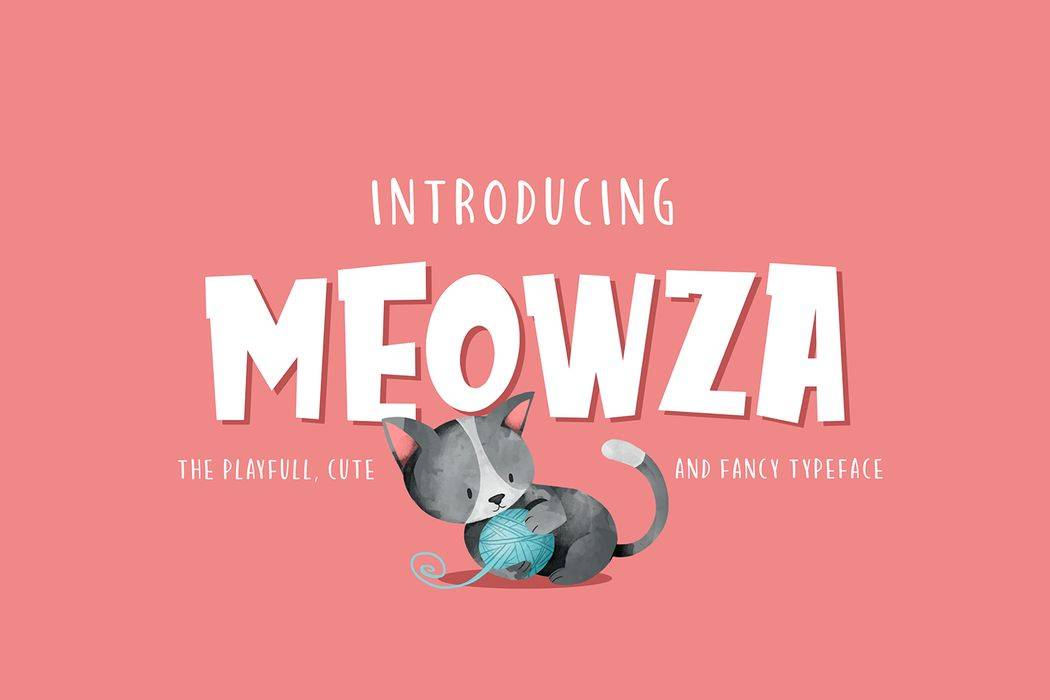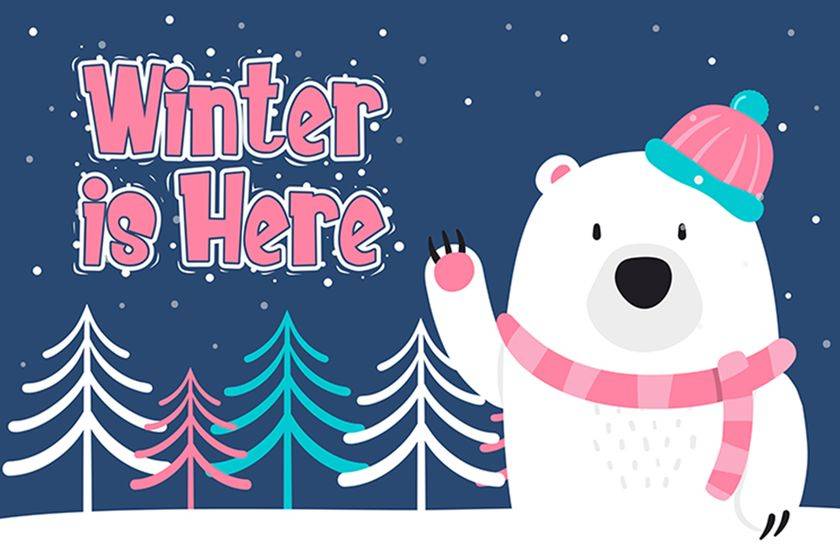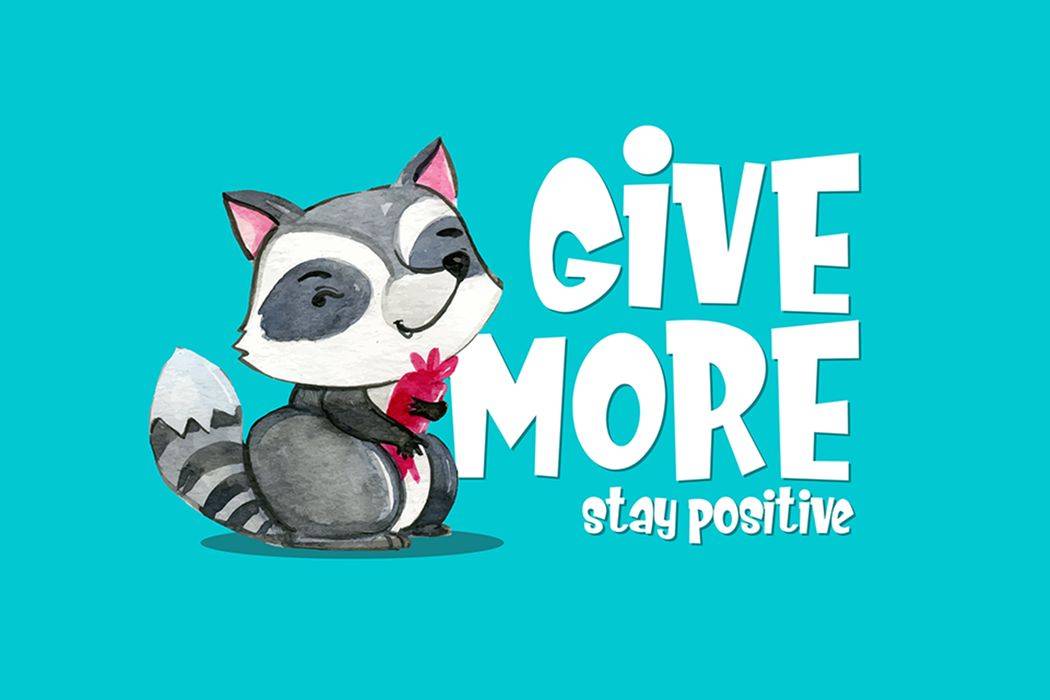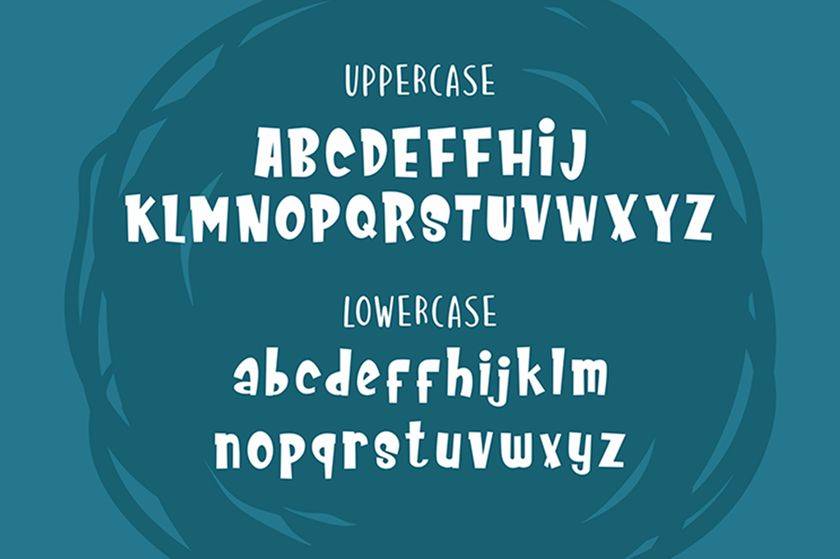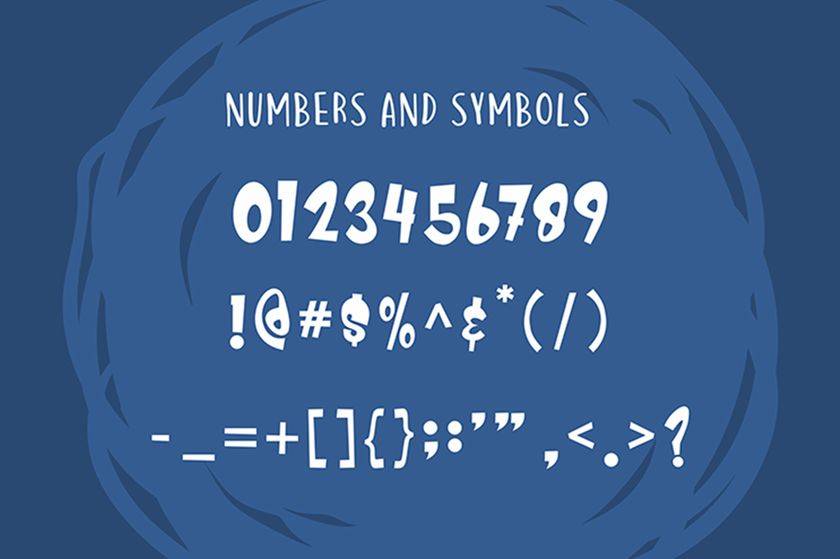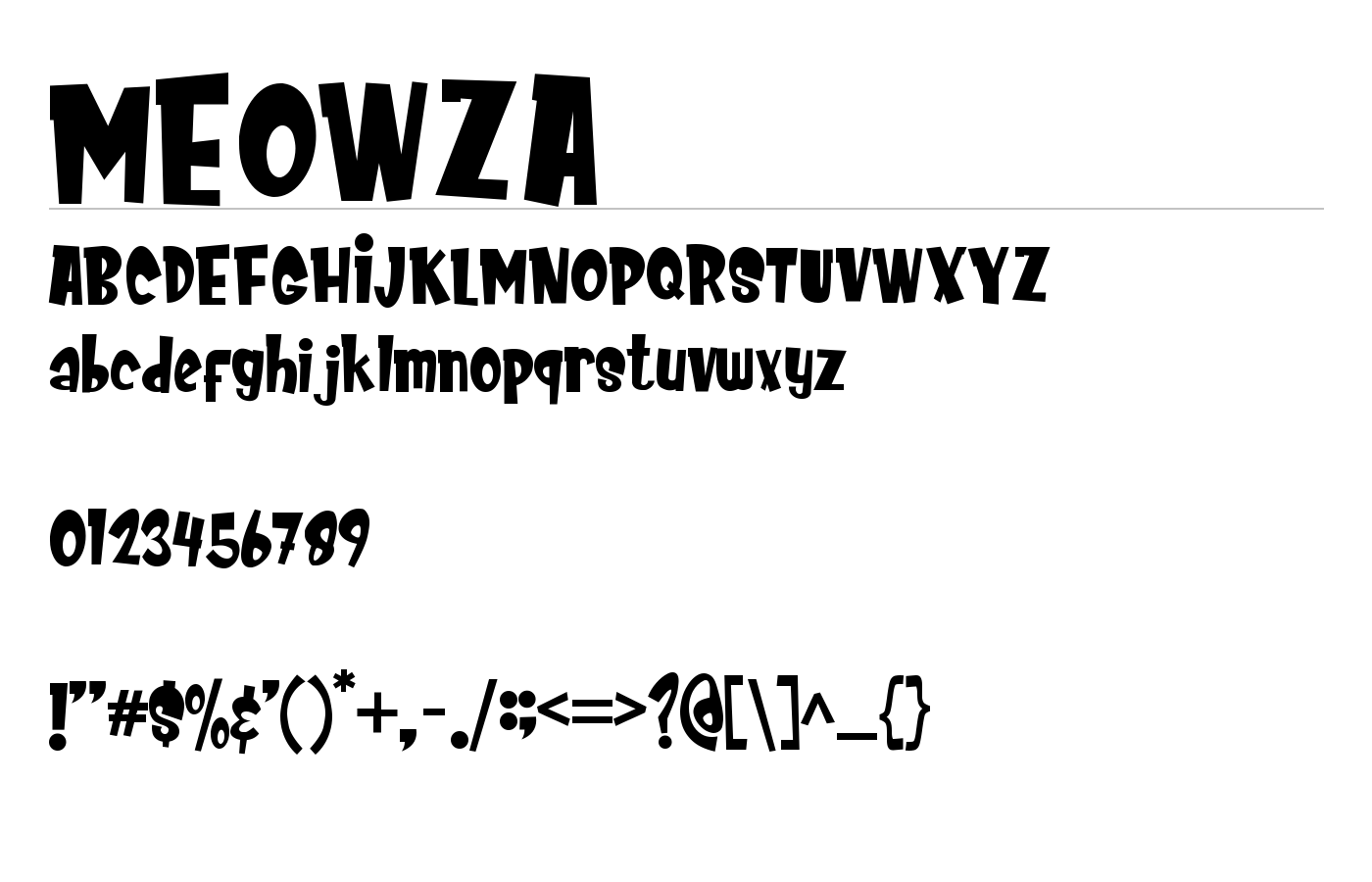
Meowza is a bold, playful sans serif font featuring quirky, uneven letterforms that give it a lively and fun personality. Its strong weight combined with slightly condensed, irregular shapes makes it perfect for eye-catching headlines, logos, and creative projects that want to convey a sense of energy and whimsy. This font shines best in informal and youthful designs where a touch of humor and uniqueness is desired.
Meowza Font
About Meowza Font